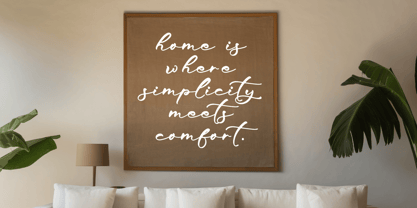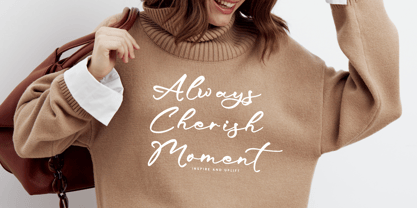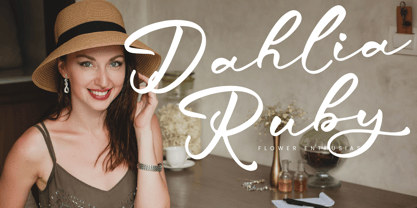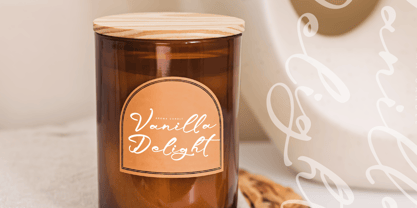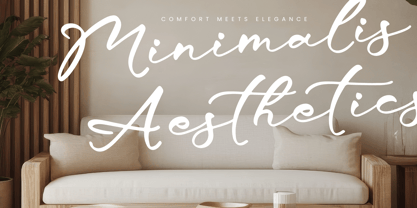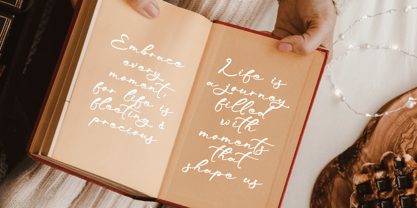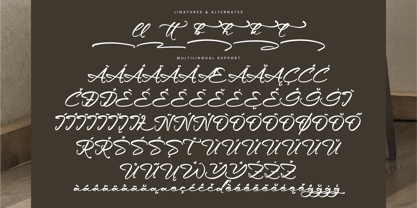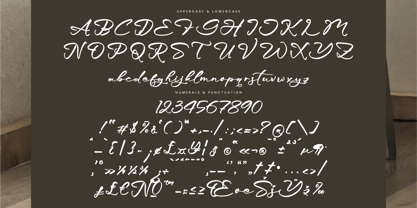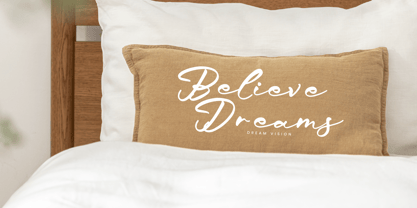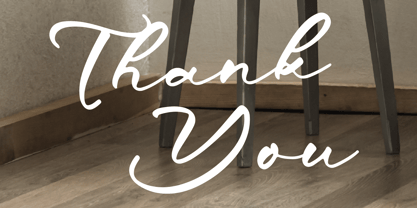
Lindgre
by Integritype
The Lindgre Font Family was designed by Ranndy Rizky Febrian and published by Integritype. Lindgre contains 2 styles and family package options. More about this family
Lindgre - Modern Handwritten Script Font, from Integritype Studio, perfect for any project like: logos, branding projects, homewares designs, product packaging, mugs, quotes, posters, shopping bags, t-shirts, covers books, business cards, invitation cards, greeting cards, labels, photography, watermarks, special events and all your other luxury projects that require a premium taste.
Designers: Ranndy Rizky Febrian
Foundry: Integritype